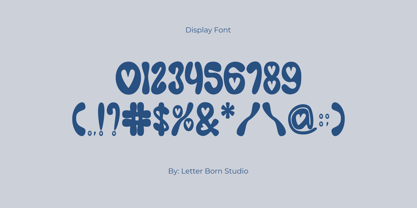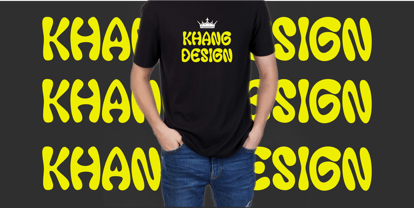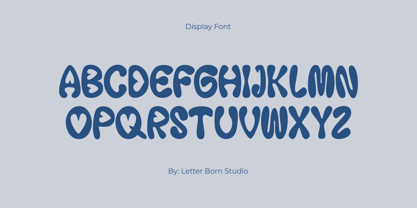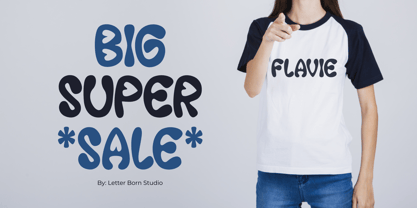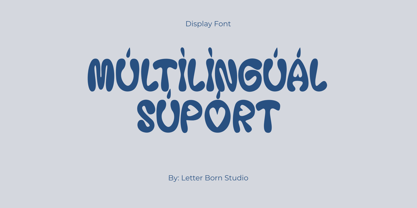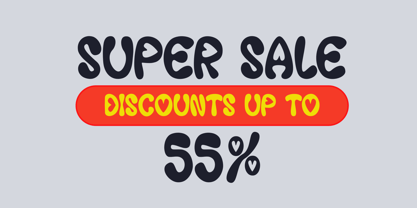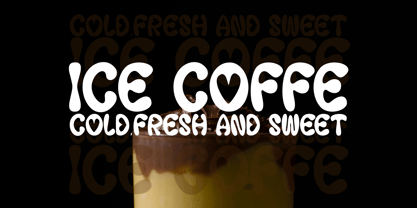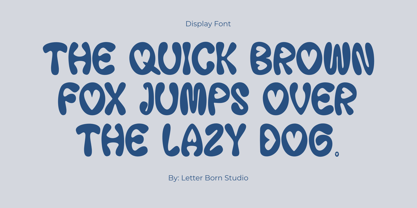
Zeesha
by Letter Born Studio
The Zeesha Font Family was designed by Firman Satrio and published by Letter Born Studio. Zeesha contains 1 styles. More about this family
Zeesha Font Display is a unique display font with a soft bubble style and charming heart-shaped accents in some characters. Its playful and expressive design makes it perfect for creative projects that need a cheerful, friendly, and love-filled touch.
This font features rounded and puffy letterforms, creating a soap bubble-like appearance with hidden heart details. Certain characters, such as "E," "S," "A," or the dot on "i," incorporate subtle heart shapes, adding a romantic and cute aesthetic.
Zeesha Font Display Features:
• Rounded, bubbly letters with a soft and fun look
• Heart-shaped accents in select characters
• Bold and puffy appearance, giving a warm and friendly feel
• Ideal for fun designs, branding, and love-themed projects
• Perfect for greeting cards, logos, posters, packaging, and social media
Add a touch of joy, warmth, and love to your designs with Zeesha Font Display!
Designers: Firman Satrio
Foundry: Letter Born Studio